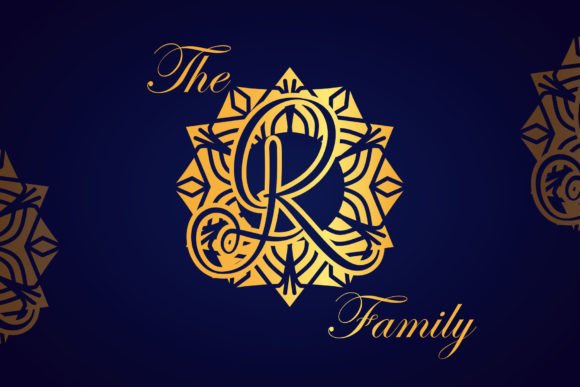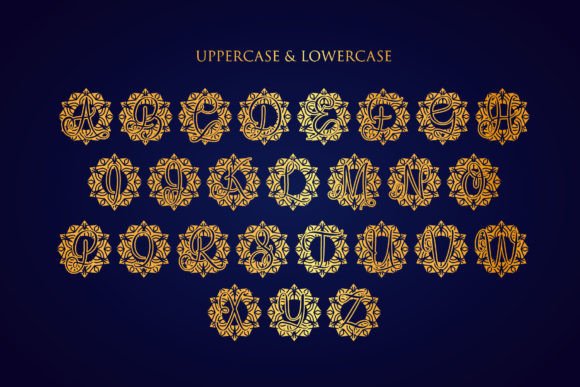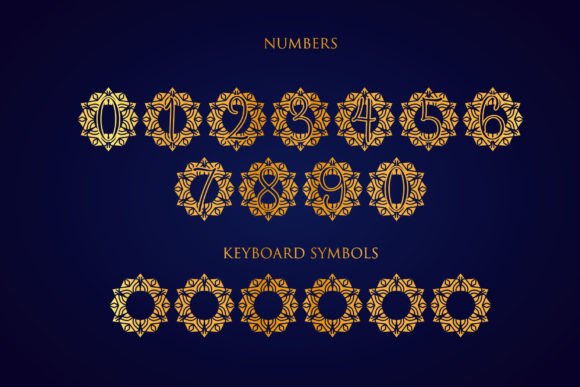
Introducing the Ethnic Mandala Monogram Font: Elevate Your Designs with Elegance
In the world of design, fonts play a crucial role in conveying the tone and aesthetic of a project. For designers and crafters looking to add a touch of elegance and uniqueness to their creations, the Ethnic Mandala Monogram Font is an excellent choice. Inspired by the intricate beauty of mandala art, this decorative font is sure to make your designs stand out.
What is the Ethnic Mandala Monogram Font?
The Ethnic Mandala Monogram Font is a stylish and unique decorative font that draws inspiration from the elegance of mandala art. Mandalas, which originated in ancient cultures, are intricate designs that symbolize unity, harmony, and balance. This font captures the essence of mandala art, incorporating its intricate patterns and shapes into a beautiful and classy typeface.
Key Features of the Ethnic Mandala Monogram Font
- Unique and Stylish Design: The Ethnic Mandala Monogram Font boasts a distinctive and stylish design that is sure to add a touch of elegance to any project.
- Inspired by Mandala Art: The font’s design is inspired by the intricate patterns and shapes found in mandala art, making it perfect for designs that require a touch of cultural and spiritual significance.
- Classy Look: The font’s classy look makes it suitable for a wide range of design projects, from luxury brands to wedding invitations and more.
- Decorative and Versatile: The Ethnic Mandala Monogram Font is a decorative font that can be used for a variety of design projects, including logos, monograms, titles, and more.
Uses of the Ethnic Mandala Monogram Font
The Ethnic Mandala Monogram Font is a versatile font that can be used for a wide range of design projects, including:
- Logos and Branding: The font’s unique and stylish design makes it perfect for logos and branding projects that require a touch of elegance and sophistication.
- Wedding Invitations and Stationery: The font’s classy look makes it suitable for wedding invitations, stationery, and other paper crafts.
- Packaging and Product Design: The font’s decorative design makes it perfect for packaging and product design projects that require a touch of uniqueness and style.
- Digital and Print Media: The font can be used for digital and print media, including social media graphics, flyers, brochures, and more.
Why Choose the Ethnic Mandala Monogram Font?
With so many fonts available, why choose the Ethnic Mandala Monogram Font? Here are a few reasons:
- Unique Design: The font’s unique design makes it stand out from other fonts, ensuring that your designs will be noticed.
- Elegant and Sophisticated: The font’s elegant and sophisticated design makes it perfect for designs that require a touch of luxury and refinement.
The Ethnic Mandala Monogram Font is a stylish and unique decorative font that is sure to elevate any design project. With its elegant and sophisticated design, this font is perfect for designers and crafters looking to add a touch of luxury and refinement to their creations. Whether you’re working on a logo, wedding invitation, or packaging design, this font is sure to make your designs stand out.